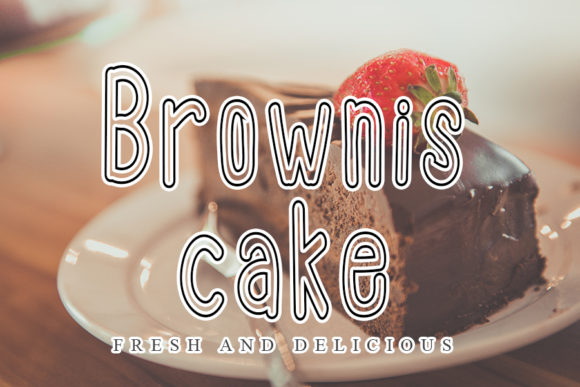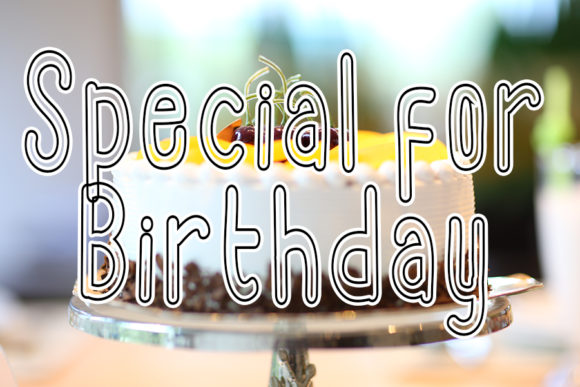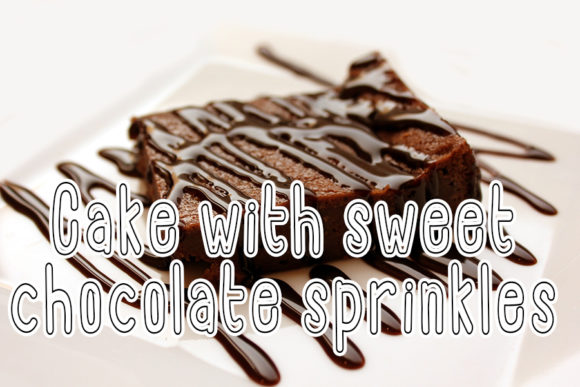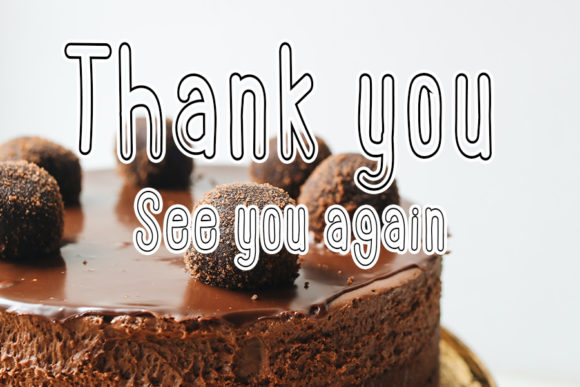
The Sweet Spot: Discovering the Charm of Chocolate Font
I’ll never forget the time I was working on a wedding invitation project, and my client asked for a font that was both elegant and playful. I scoured the internet, tried out countless fonts, but nothing seemed quite right. That was until I stumbled upon Chocolate Font. Its simple, outlined design immediately caught my eye, and I knew I had found the perfect fit. In this article, I’ll share my experience with Chocolate Font, its features, and how to make the most of it in your designs.
A First Impression: What I Love About Chocolate Font
Chocolate Font is a versatile and charming outlined display font that’s perfect for a wide range of projects, from logos and wedding invitations to headings, t-shirts, and more. Here are some things I love about it:
- ✨ Simple and neat design that’s easy to read
- ✅ Highly versatile and adaptable to different contexts
- 🎨 Works well in both digital and print formats
- 👍 Great for creating eye-catching headings and titles
The Not-So-Perfect: Small Quirks and Limitations
No font is perfect, and Chocolate Font is no exception. Here are a few things to keep in mind:
- 🤔 May not be suitable for body text or long paragraphs due to its outlined design
- ⚠️ Limited availability of stylistic alternates and glyphs compared to other fonts
Exploring Alternatives: Similar Fonts to Chocolate Font
If you like Chocolate Font, you might also enjoy these similar fonts:
- Kafka: A modern, sans-serif font with a similar minimalist vibe
- Alex Brush: A elegant, handwritten font with a touch of sophistication
- Great Vibes: A fun, outlined script font perfect for creative projects
- Pacifico: A beautiful, modern script font with a relaxed feel
The Story Behind Chocolate Font
Chocolate Font was designed with the intention of creating a simple, yet elegant font that’s perfect for a wide range of projects. Its creator aimed to craft a font that’s both highly legible and visually appealing, making it a great choice for designers, crafters, and creative hobbyists alike.
| Font Name | Chocolate Font |
| Author | NYA Letter |
| What is Chocolate Font best used for? | Chocolate Font is perfect for logos, wedding invitations, headings, t-shirts, letterhead, signage, labels, news, posters, badges, and more. |
| Is Chocolate Font suitable for body text? | While Chocolate Font is highly legible, its outlined design may not be the best choice for long paragraphs or body text. It’s better suited for headings and titles. |
| Are there any similar fonts to Chocolate Font? | Yes, some similar fonts to Chocolate Font include Kafka, Alex Brush, Great Vibes, and Pacifico. |